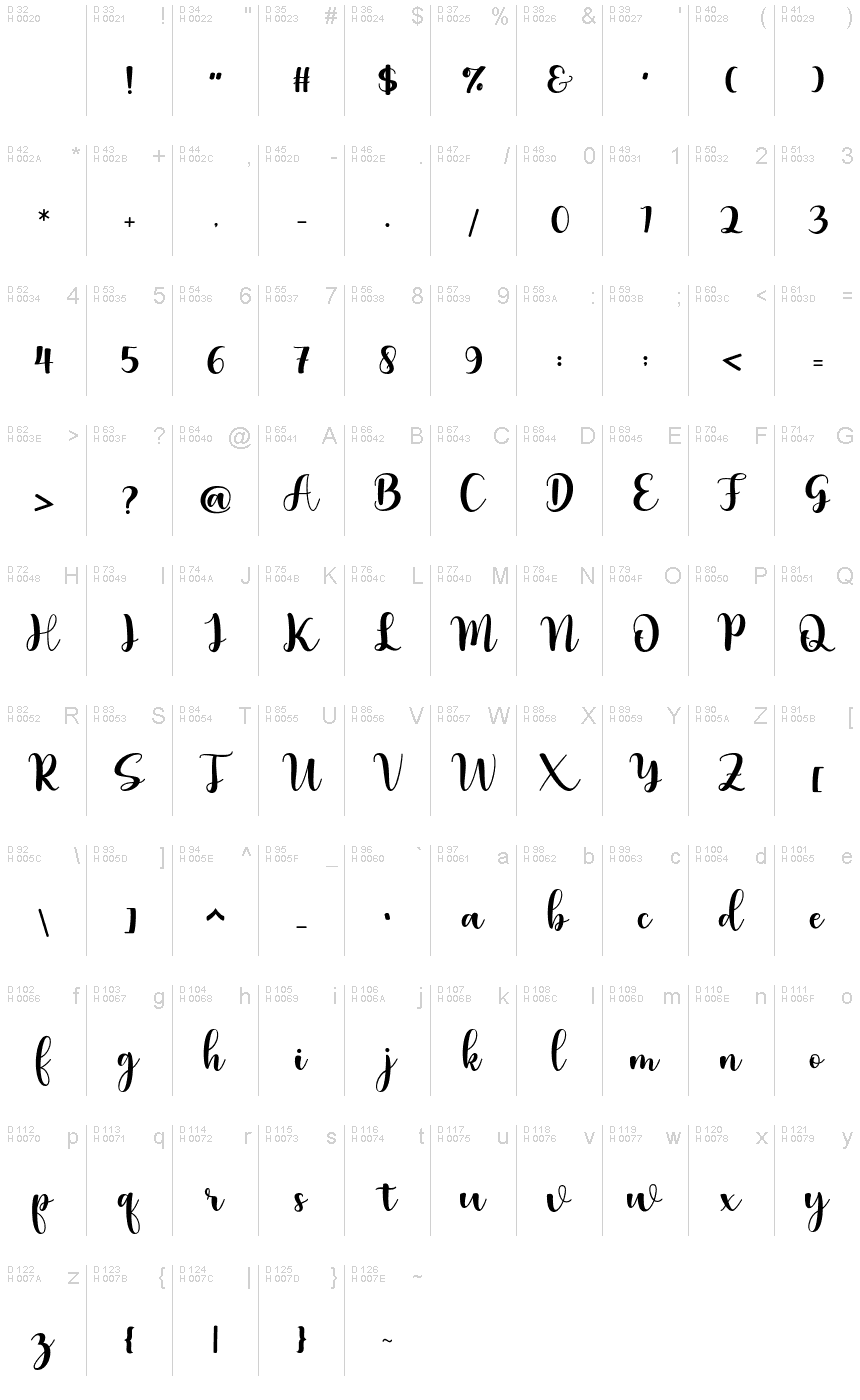
ChristianaScript
Meet Christiana Script, a mesmerizing calligraphy font designed by Cut Story. With its elegant strokes and graceful curves, this font adds a touch of sophistication to any project. Perfect for wedding invitations, luxurious branding materials, or romantic greeting cards, Christiana Script effortlessly captures attention and exudes timeless charm. Its flowing lines create a sense of movement and grace, making it suitable for projects that require an air of refinement and beauty. Whether you're designing elegant stationery or creating stunning logos for high-end brands, Christiana Script is the perfect choice to elevate your creations to new heights.